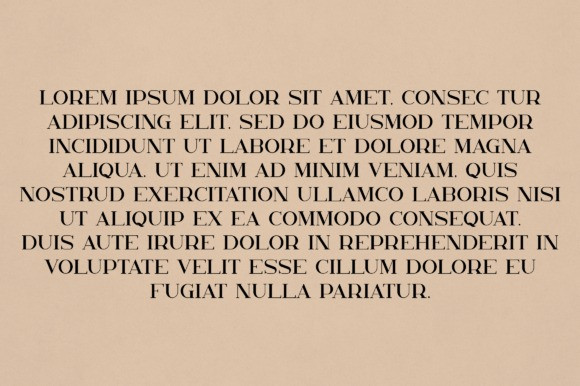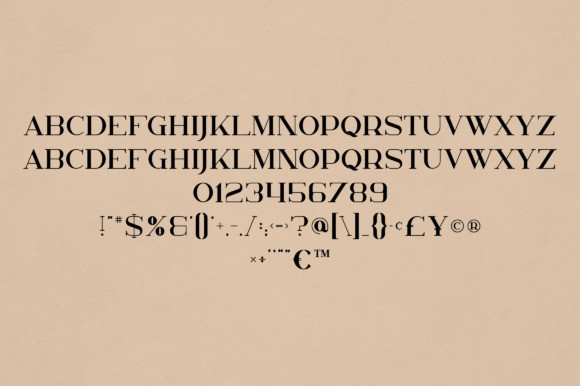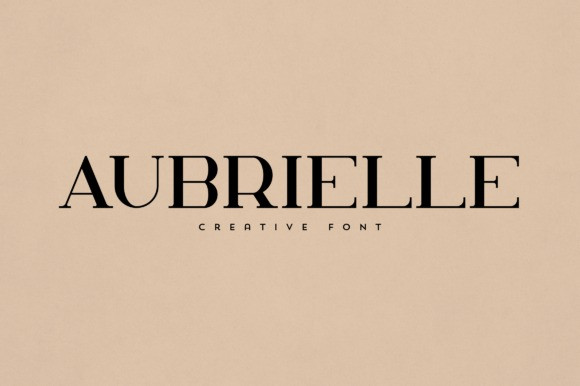
Aubrielle Font
Aubrielle Font is an elegant and versatile font that will make your typography truly unique! It will enchant every logo, branding, headline, or plain text!